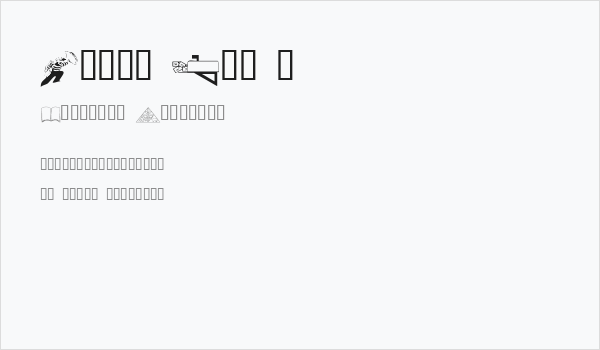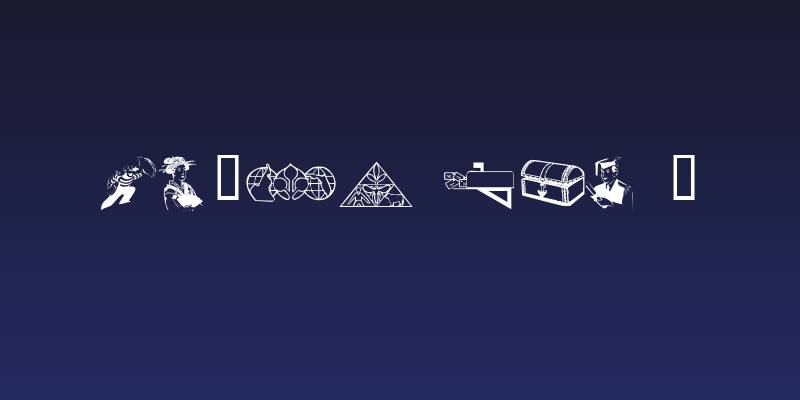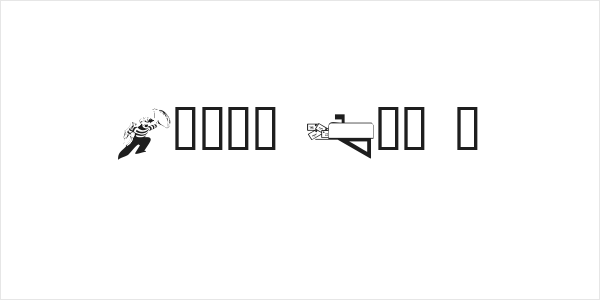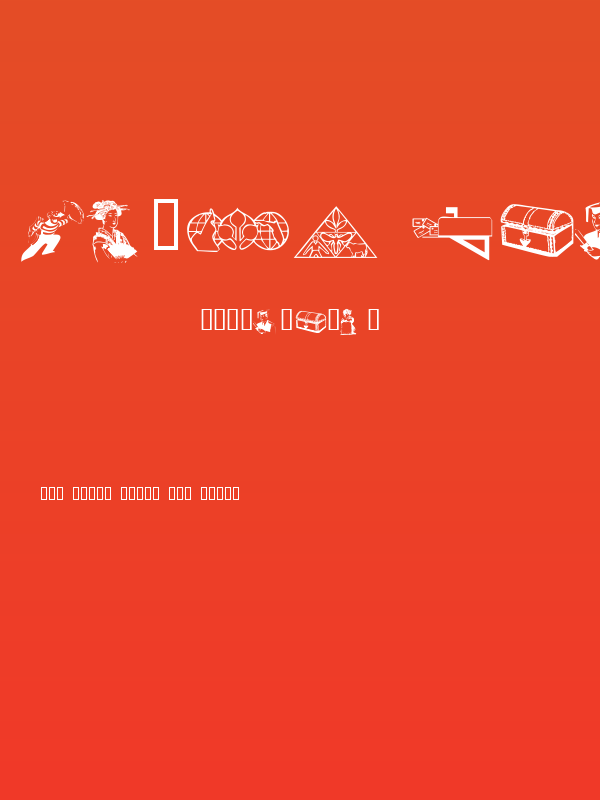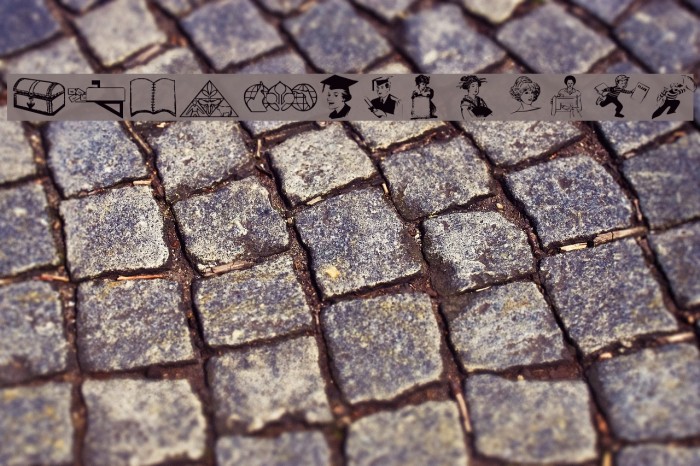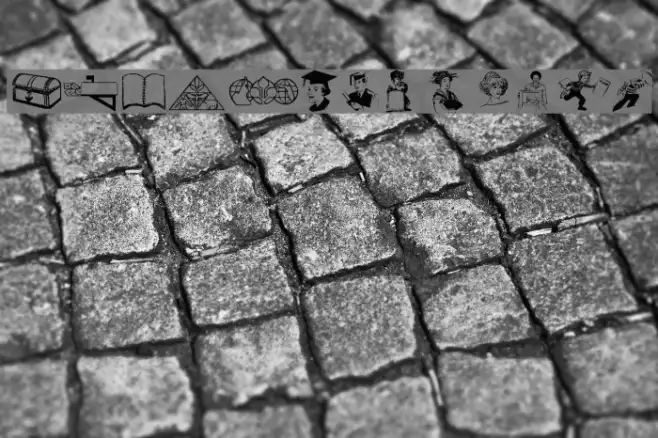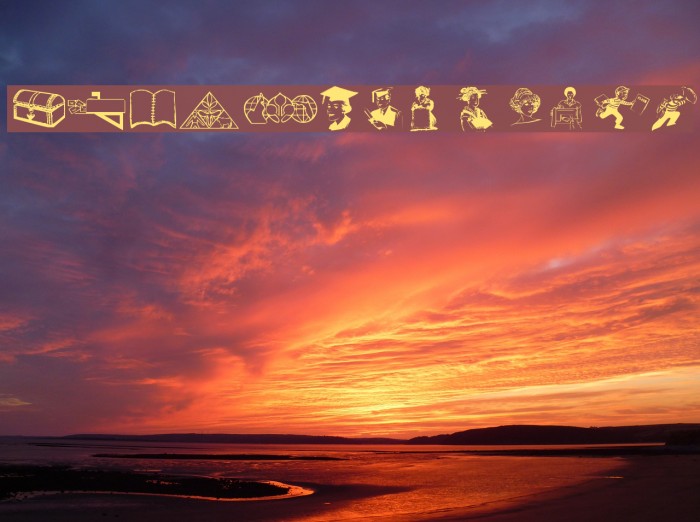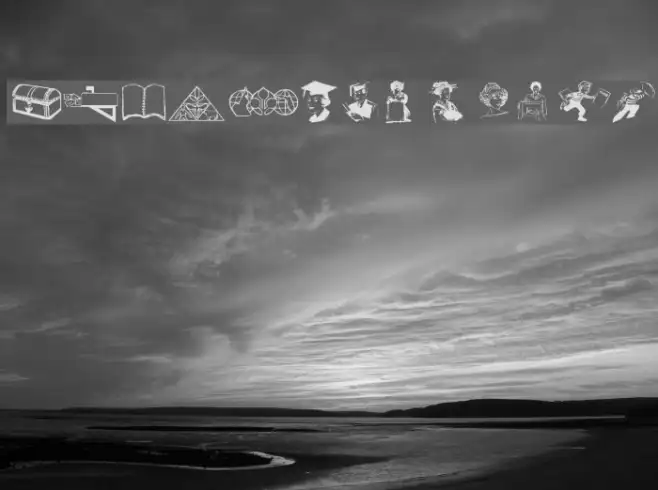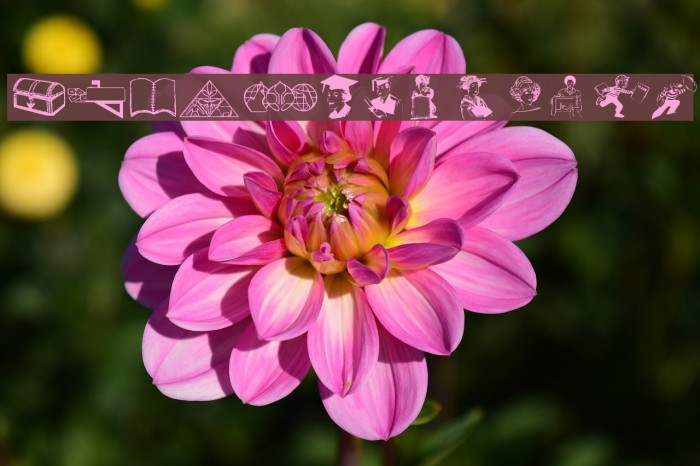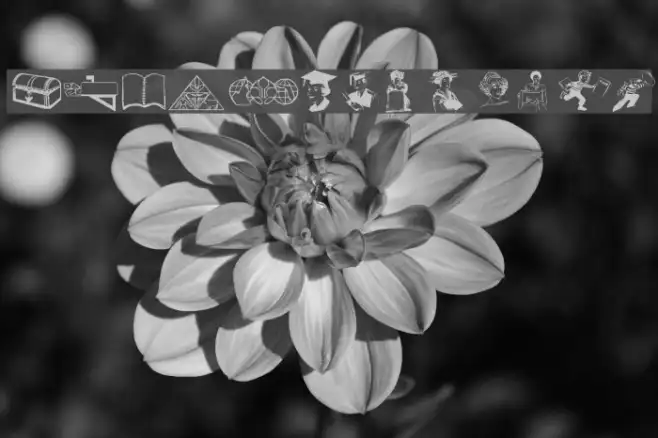
Mixed Bag 2 Font
Mixed Bag 2 Description
A collection of hand-drawn, illustrative icons depicting various educational and academic themes, such as books, graduation, and students in different poses. Each icon is detailed with a sketch-like quality, offering a playful and informal appearance.
| Overall Style | Decorative, Playful, Hand-drawn |
| Use Case | Icons, Illustrations, Thematic graphics |
| Proposed Projects | Educational materials, school posters, classroom decor, children's books, playful infographics. |